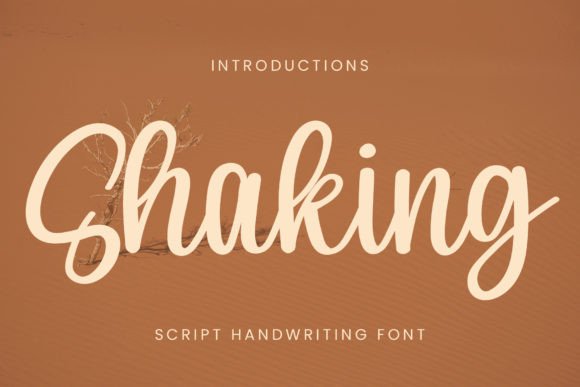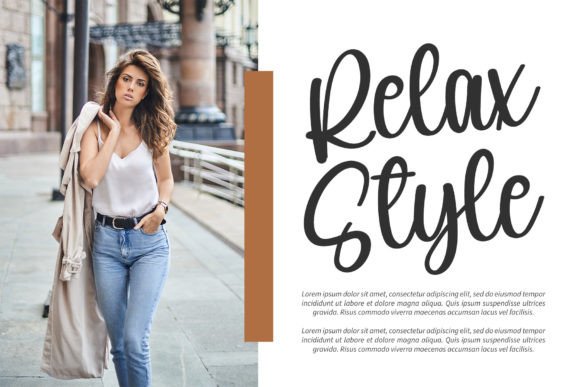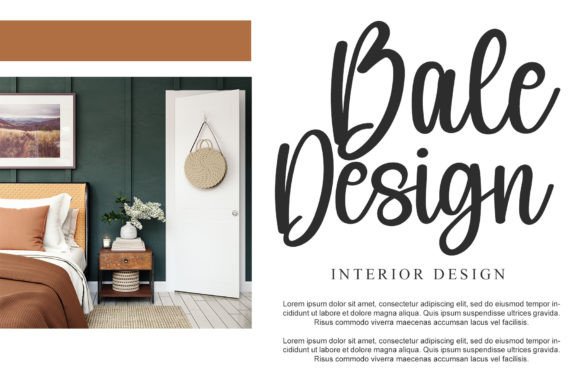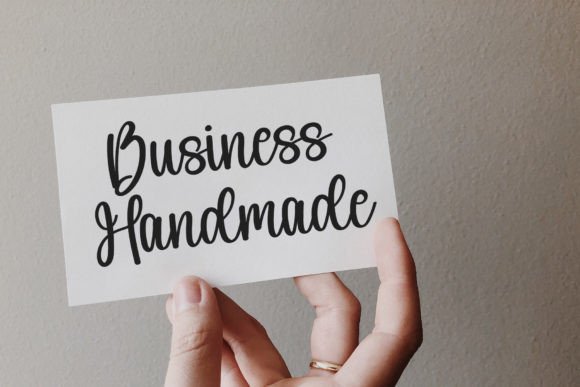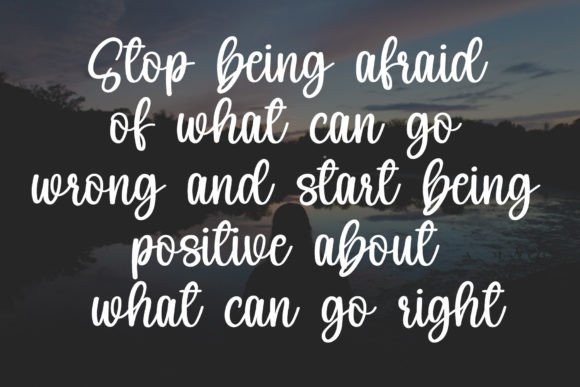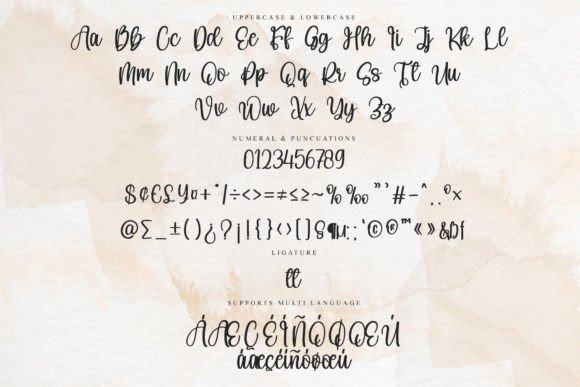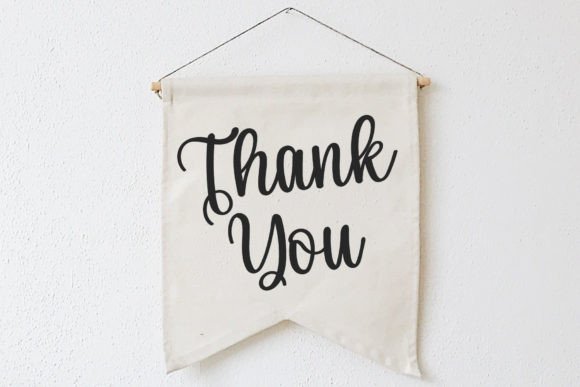
Shaking Font
About Shaking Font
“Shaking” is more than just a font; it’s a dazzling script typeface designed to make a statement. Neatly crafted and highly detailed, this font stands out with its meticulous design. Whatever the topic, “Shaking” is a font that adds a touch of sophistication and flair to your creations, making it a wonderful asset for your font library.
The dazzling and detailed qualities of “Shaking” are immediately apparent in its script design. Each letter is crafted with precision, contributing to an overall aesthetic that is both elegant and eye-catching. This makes it an ideal choice for projects that demand a font with a high level of detail and visual impact.
The versatility of “Shaking” becomes evident in its adaptability to various design contexts. Whether used in branding to create a memorable logo or to enhance the elegance of wedding designs, this font confidently fits into a diverse range of creative projects.
Imagine “Shaking” gracing product packaging, where its detailed script adds a luxurious touch. Picture it in digital graphics, creating a visually engaging and memorable experience. “Shaking” becomes a font that not only looks dazzling but also enhances the overall visual appeal of your designs.
In summary, “Shaking” is not just a font; it’s a design asset that brings a dazzling and detailed touch to your creative projects. Let it be the choice for adding sophistication and flair to your logos, invitations, and more. With “Shaking,” every project becomes an opportunity to showcase the beauty of script typography with precision and impact.